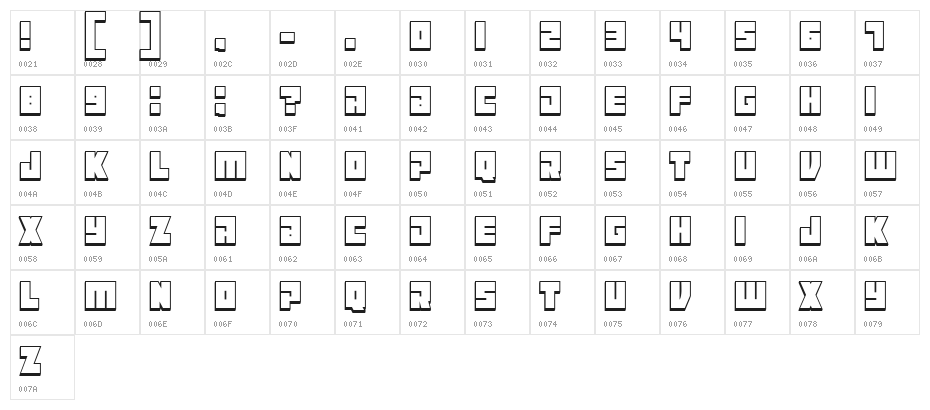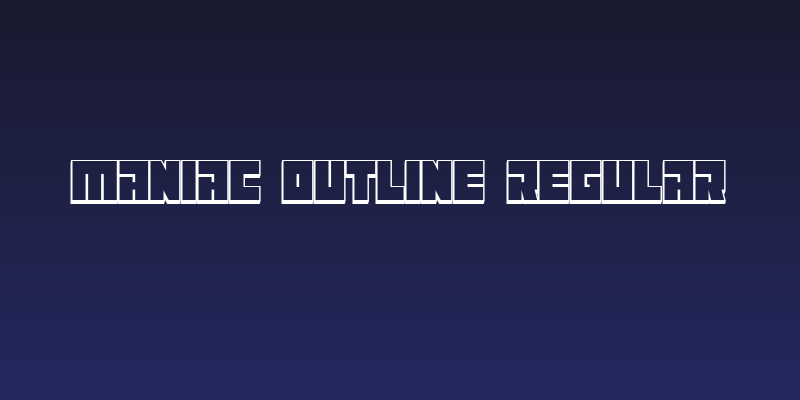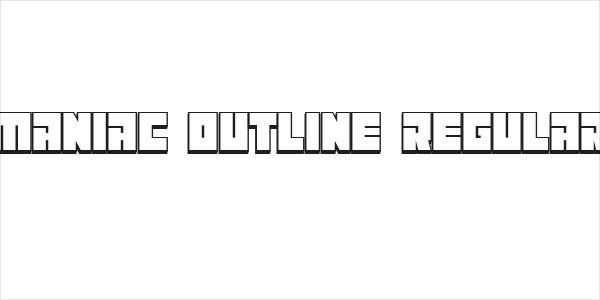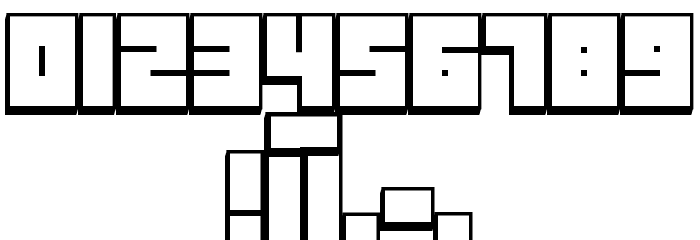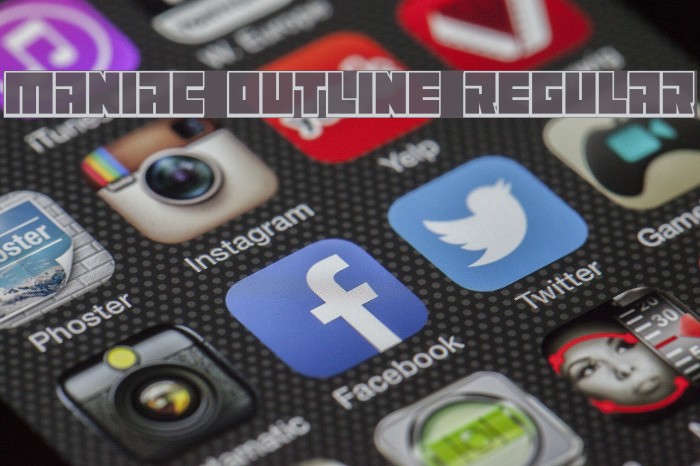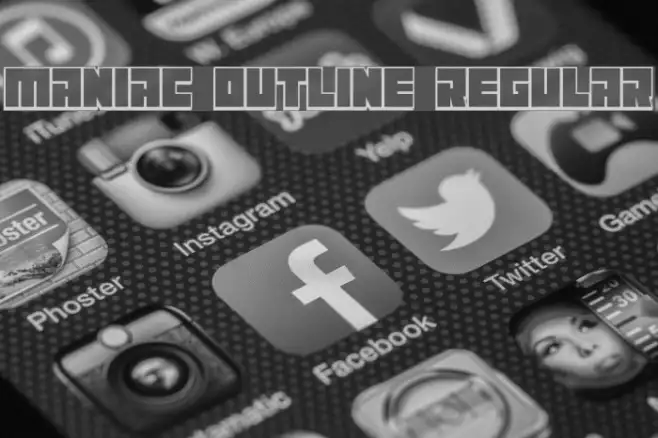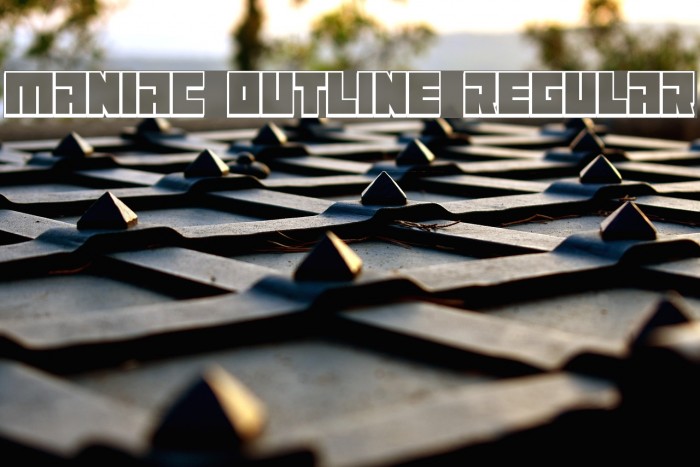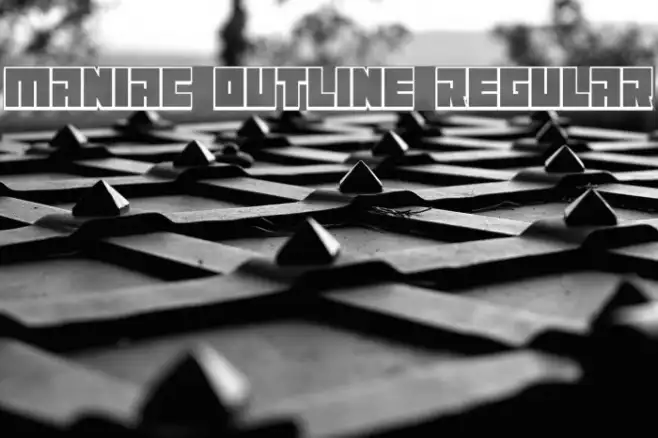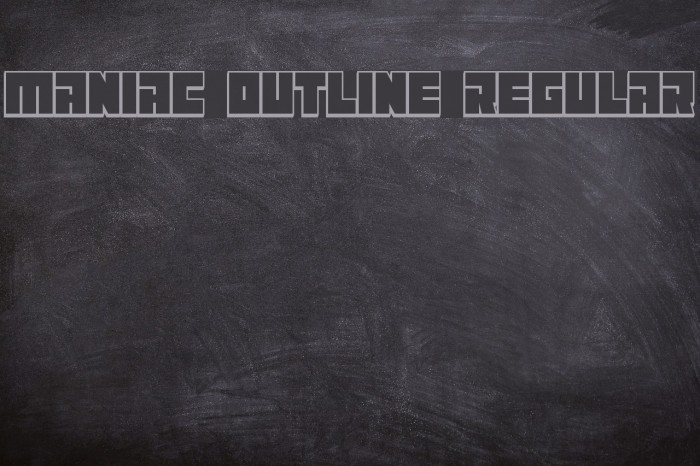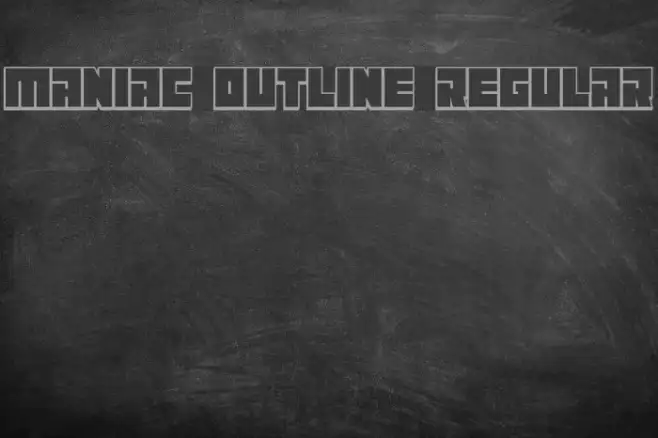
Maniac Outline Regular Font
Maniac Outline Regular Description
This font features a bold, geometric outline style with a distinctly modern and futuristic appearance. Each character is constructed with sharp, angular lines and a uniform thickness, creating a cohesive and structured look. The uppercase and lowercase letters maintain a consistent height, while the numerals and special characters follow the same design principles. The font's outline nature gives it a unique, hollow appearance that stands out, making it ideal for eye-catching designs. Its structured form and clear readability make it suitable for various creative applications.
| Proposed Projects | Ideal for posters, logos, video game graphics, and sci-fi themed designs. |